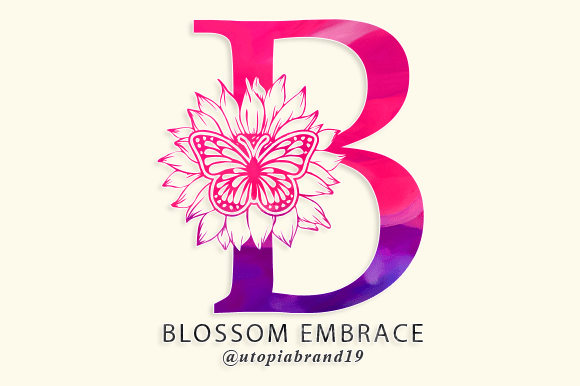
Blossom into Creativity with the Blossom Embrace Monogram Font
Have you ever stumbled upon a font that makes you feel like a kid in a candy store? You know, that moment when you’re browsing through font collections and suddenly, something catches your eye? For designers, this moment is pure magic, and it’s exactly what happens when you lay eyes on the Blossom Embrace Monogram Font.
This elegant decorative font is a treasure trove of lovely ornaments, waiting to be used in your next creative project. Whether you’re designing wedding invitations, beautiful stationery art, or eye-catching social media posts, the Blossom Embrace Monogram Font is the perfect addition to bring a touch of authenticity and whimsy to your work.
As a designer, you know how valuable it is to have a versatile font that can elevate your projects and leave a lasting impression. The Blossom Embrace Monogram Font is a game-changer, and with its unique blend of elegance and playfulness, it’s sure to become a favorite in your font collection.
Blossom Embrace Monogram Font Key Features
- Font Styles: Blossom Embrace Monogram Font comes in multiple styles, including regular, bold, and monogrammed versions, allowing for versatility in design applications.
- Character Set: The font includes a wide range of characters, including uppercase and lowercase letters, numbers, punctuation, and special characters, making it suitable for various design projects.
- Resolution: Designed for high-resolution printing and digital display, Blossom Embrace Monogram Font is ideal for use in print materials, such as business cards, invitations, and signage, as well as digital applications, like websites and social media graphics.
- Size: The font is available in a range of sizes, from 12pt to 72pt, allowing designers to choose the perfect size for their project.
- Unique Characteristics: Blossom Embrace Monogram Font features a beautiful, hand-drawn design with intricate details and a romantic touch, making it perfect for wedding invitations, baby showers, and other special occasions.
Blossom Embrace Monogram Font Review
I recently had the chance to work with the Blossom Embrace Monogram Font, and I must say, it’s a lovely addition to any design project. Here’s my honest review:
- Unique and elegant design that adds a touch of sophistication to any design project.
- Highly customizable, allowing designers to adjust the font’s color, size, and style to fit their needs.
- Perfect for creating a cohesive brand identity, especially for those in the wedding or luxury industry.
- Not suitable for large blocks of text, as it can become overwhelming and difficult to read.
- May require additional formatting to ensure proper spacing and alignment, especially when used in combination with other fonts.
- Not as versatile as other monogram fonts, limiting its use in a variety of design contexts.
Overall, I think the Blossom Embrace Monogram Font is a beautiful addition to any designer’s toolkit. While it may have some limitations, its unique design and high level of customization make it a great choice for the right project. With a little creativity and experimentation, I think this font can help designers create truly stunning designs that leave a lasting impression.
Use the Blossom Embrace Monogram Font for wedding invitations, baby shower invitations, and other special occasions.
Combine the font with other decorative elements for added visual interest.
Wedding invitations, baby shower invitations, graduation announcements, and other special occasion invitations.
The Blossom Embrace Monogram Font is perfect for creating elegant and sophisticated designs.
Q: Can I customize the Blossom Embrace Monogram Font to fit my brand’s color scheme?
Yes, the Blossom Embrace Monogram Font is fully editable in design software that supports vector graphics, such as Adobe Illustrator or Inkscape. You can modify the font’s color, shape, and size to fit your brand’s unique identity and style.